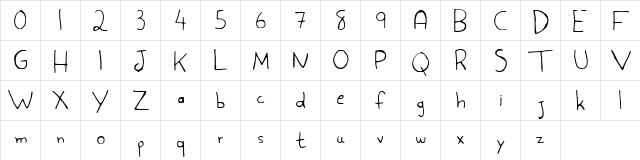
Aspargo Regular
| Foundry | Paulo R |
| Designer | Paulo R |
Design Context for Aspargo Typeface
Aspargo takes a measured approach to typography — its balanced proportions and neutral character make it a reliable workhorse for both digital and print work.